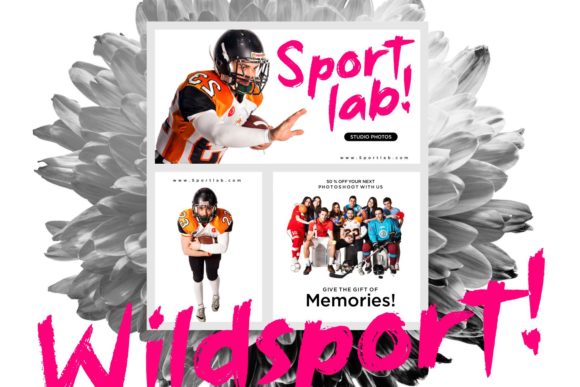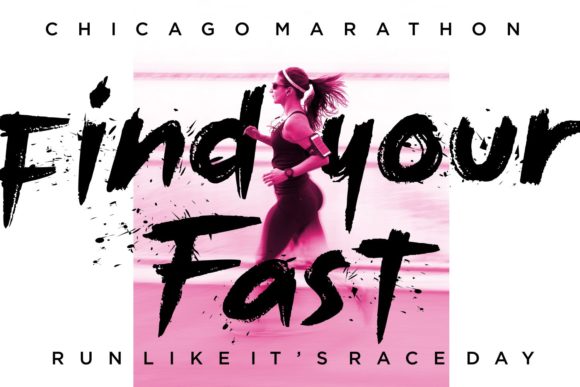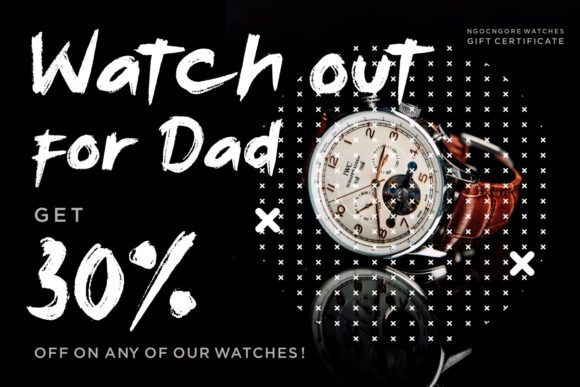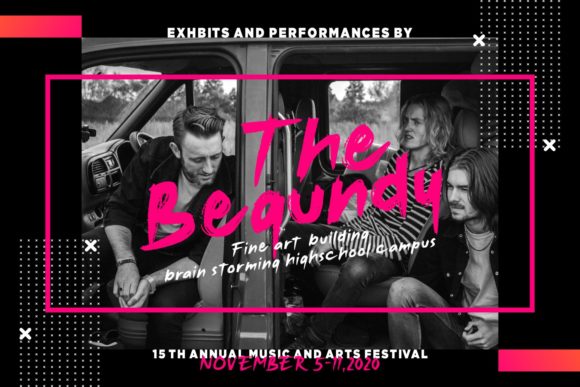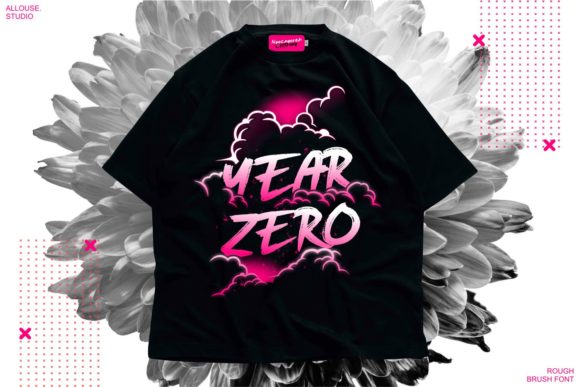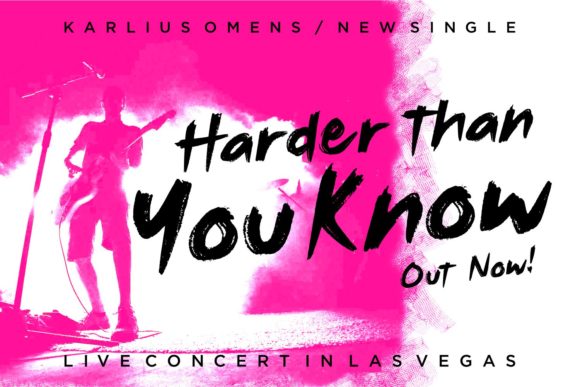
Introduction to Naofumi Font
Naofumi is a bold and a bit dramatic display font.
This original look will appeal to a wide range of crafty ideas, from letterheads and titles, to stationery .
Key Features of Naofumi Font